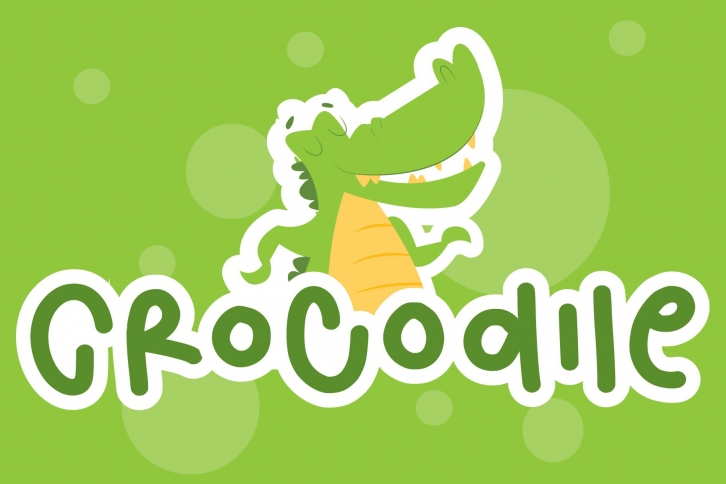
crocodile is a beautiful font that was designed by Goodigital13. It's a great choice for designers and creatives who need such a font. It was released on December 3, 2020 and the file size is 15.91 MB. crocodile may give a more youthful, expressive and casual look to your project. It is a very beautiful, refined, elegant, and high-quality font.